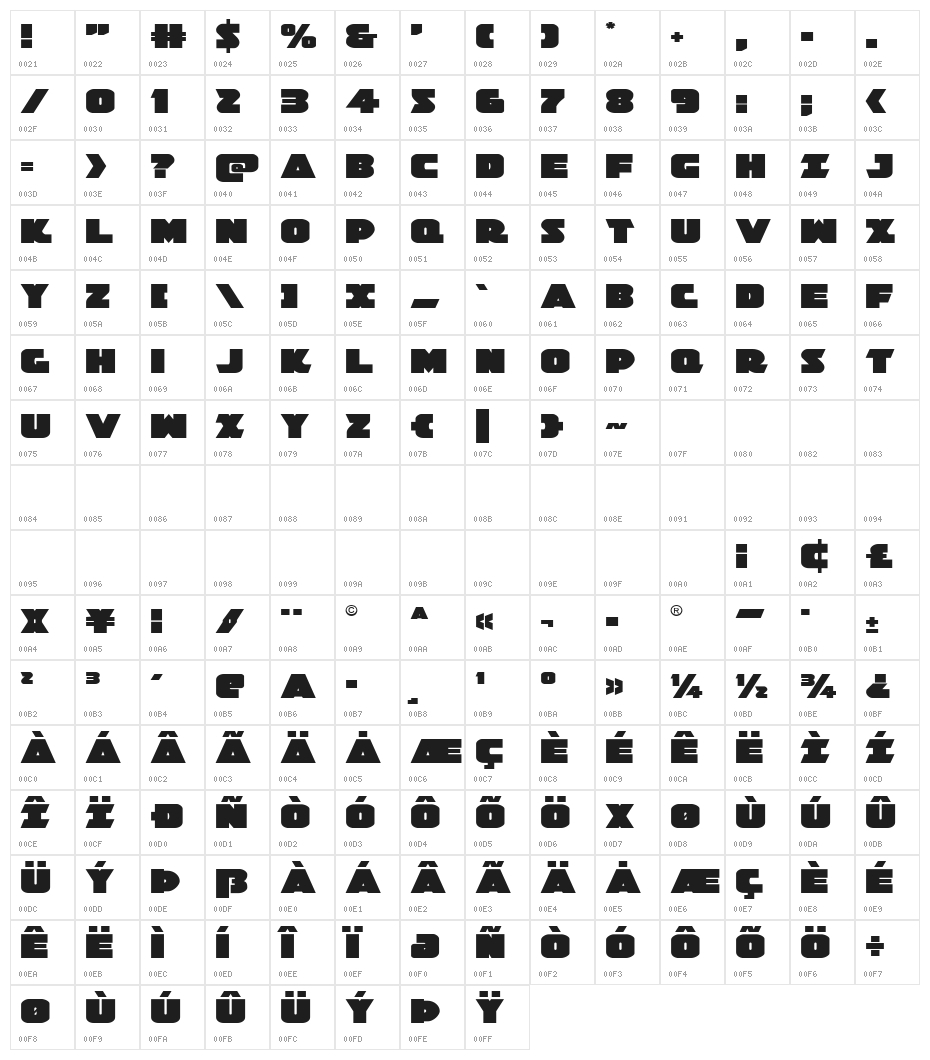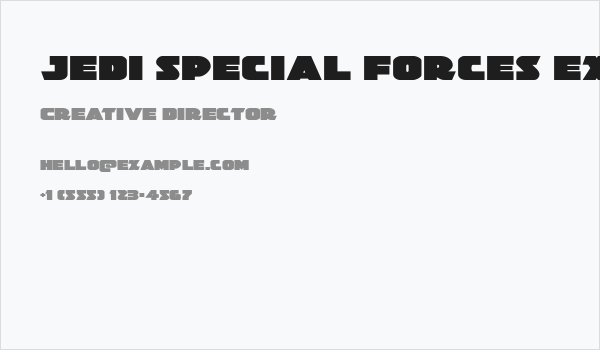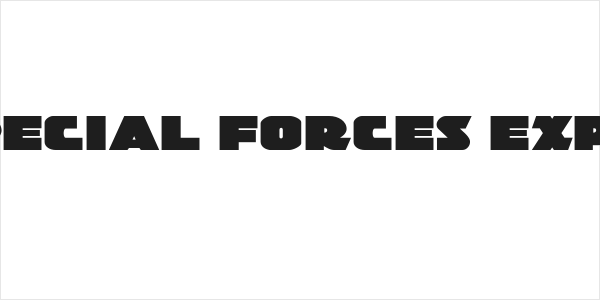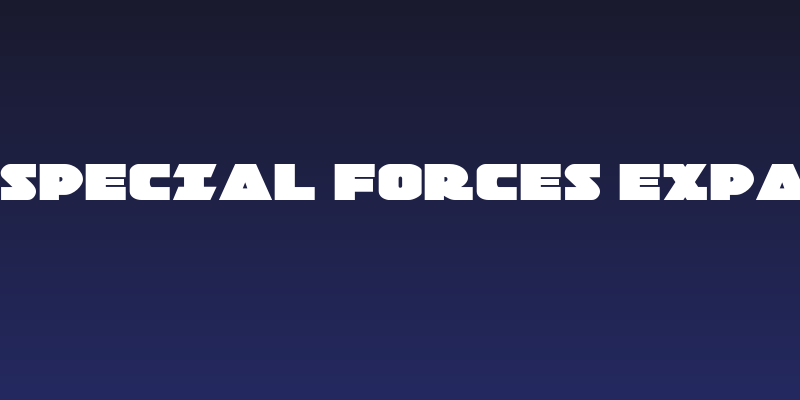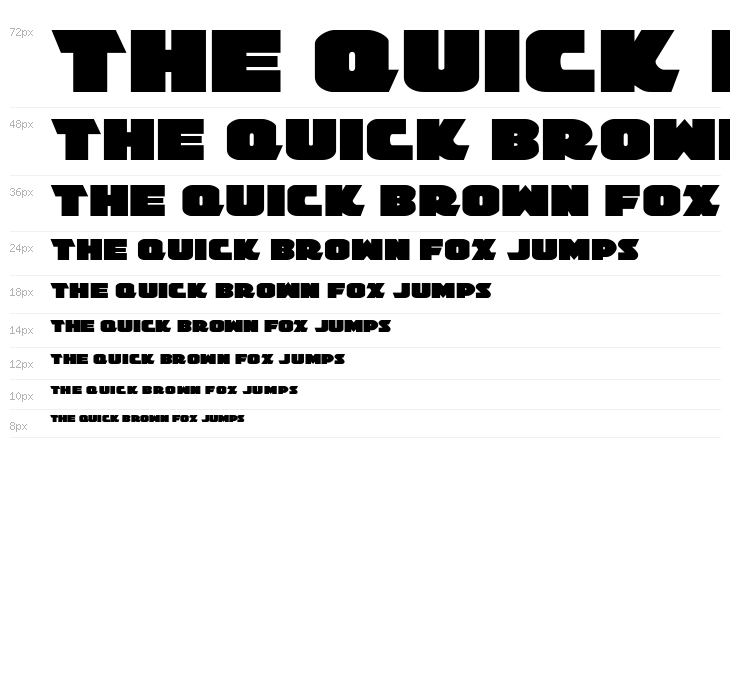
Jedi Special Forces Expanded Font
Jedi Special Forces Expanded Description
This font features a bold and striking design with a futuristic and military-inspired aesthetic. The characters are blocky and angular, with sharp edges and a strong presence. The uppercase letters are particularly dominant, conveying a sense of power and authority. The numbers and special characters maintain the same bold style, ensuring consistency across all elements. This font is ideal for projects that require a commanding and impactful visual statement.
| Proposed Projects | Ideal for video game titles, movie posters, military-themed branding, and sci-fi book covers. |